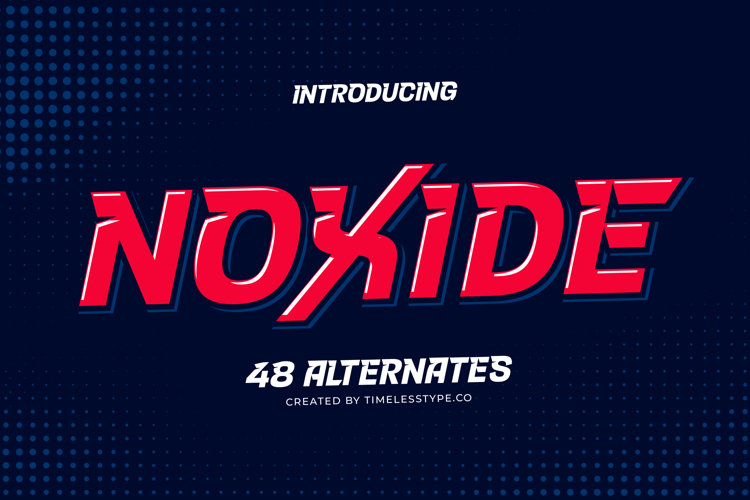
Noxide - Futuristic Display Font
Noxide - Futuristic Display Font commands attention with its dynamic and bold presence. This cutting-edge display typeface embodies a powerful blend of futuristic aesthetics and aggressive styling, making it an instant standout. Its distinctive slanted letterforms and sharp angles convey a sense of speed and modernity, perfect for projects demanding an energetic visual voice.
Unleash unparalleled creative potential with Noxide - Futuristic Display Font. Each character is meticulously crafted to deliver maximum impact, featuring innovative cuts and streamlined contours that define its unique identity. With its generous offering of 48 alternates, this font provides exceptional design flexibility, allowing designers to effortlessly customize headlines, logos, and titles for a truly bespoke look.
Noxide - Futuristic Display Font is the ultimate choice for projects that demand a high-impact and contemporary visual appeal. It is perfect for sports branding, e-sports logos, automotive advertising, tech startup identities, dynamic packaging, and bold editorial headlines. This font excels in creating memorable brand experiences that resonate with a modern audience, ensuring your message is not just seen, but felt.